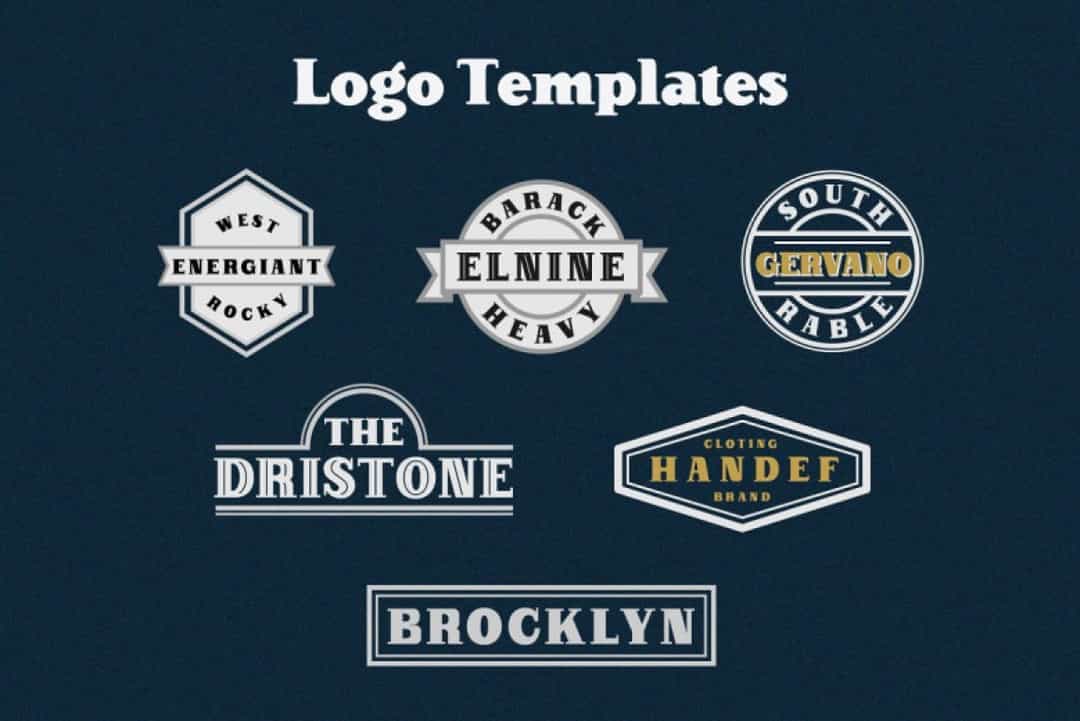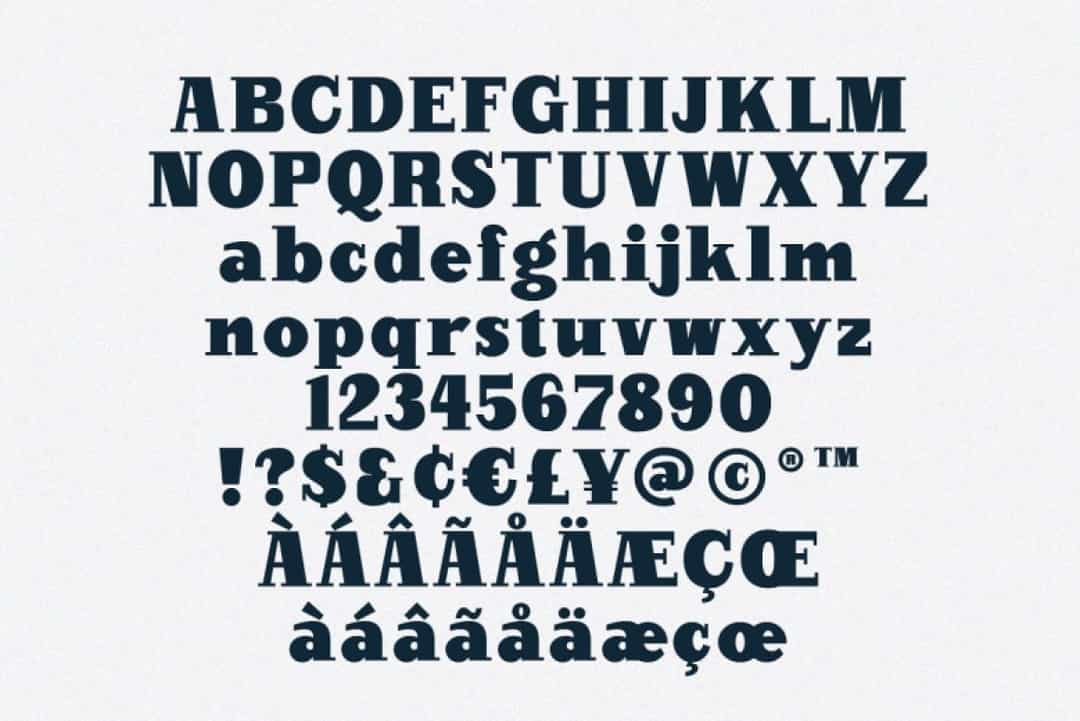
Diffan Font is a serif display typeface with an added layer that enhances the look. Diffan is the prefect font that creates logos, headlines, layouts and more.